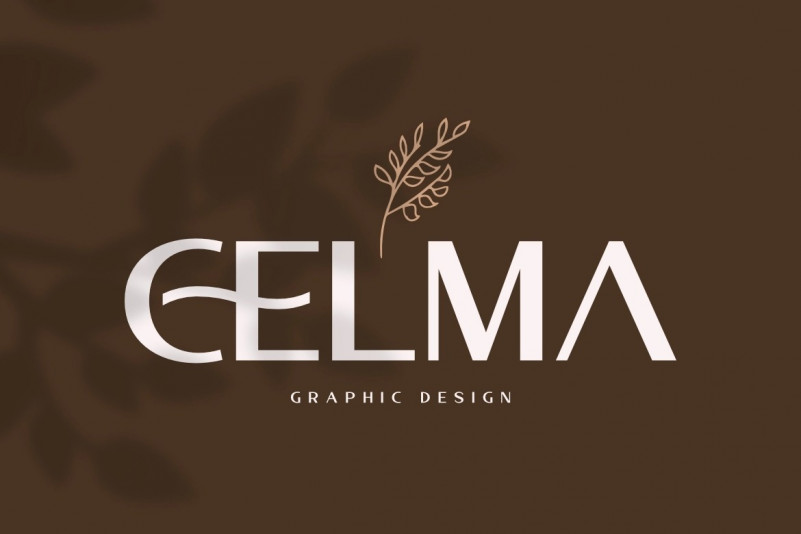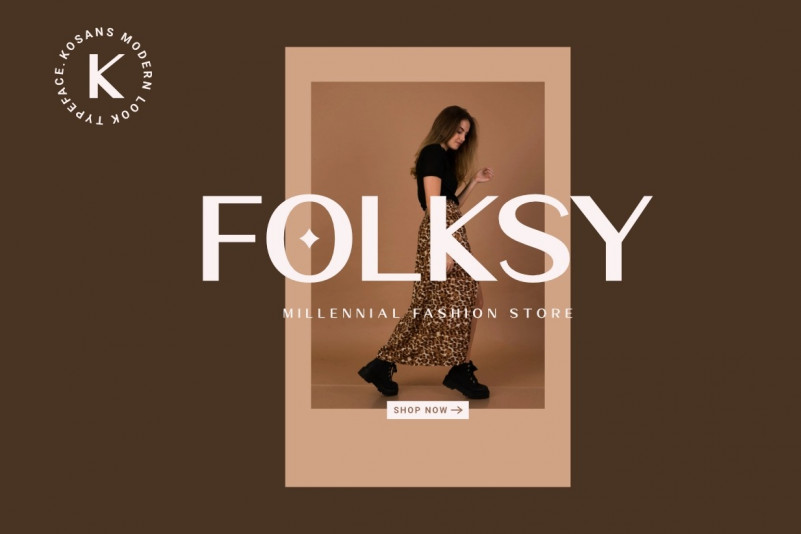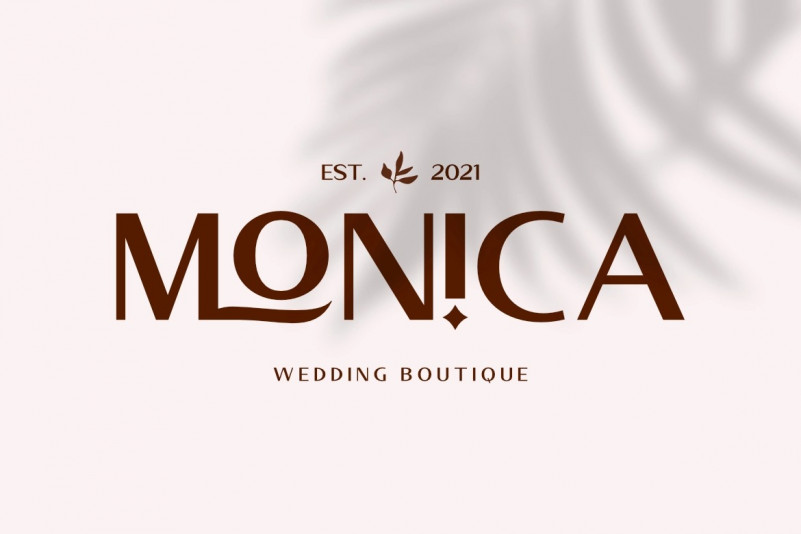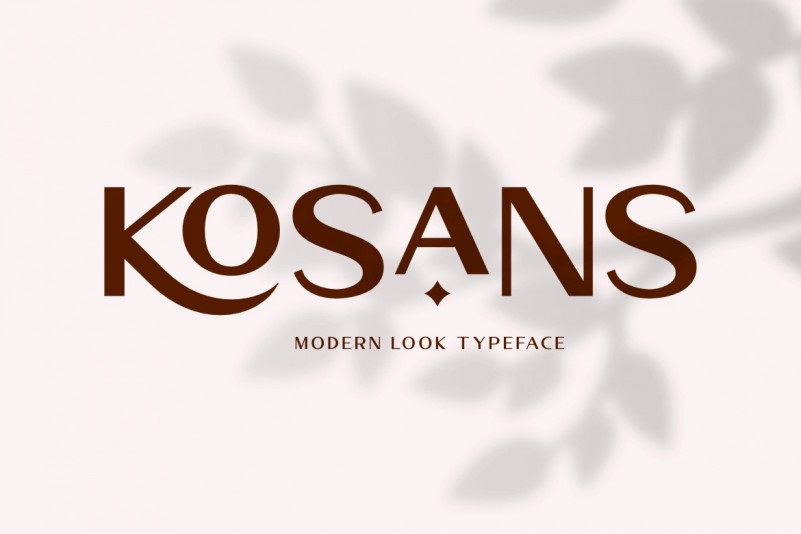
Kosans Sans Serif Font
This font blends modern and ancient typography to create a sense of nostalgic wonderlust. You can apply it to your design projects such as logos, business cards, brands, social media posts, quotes and much more which you can make with this great item for any design!